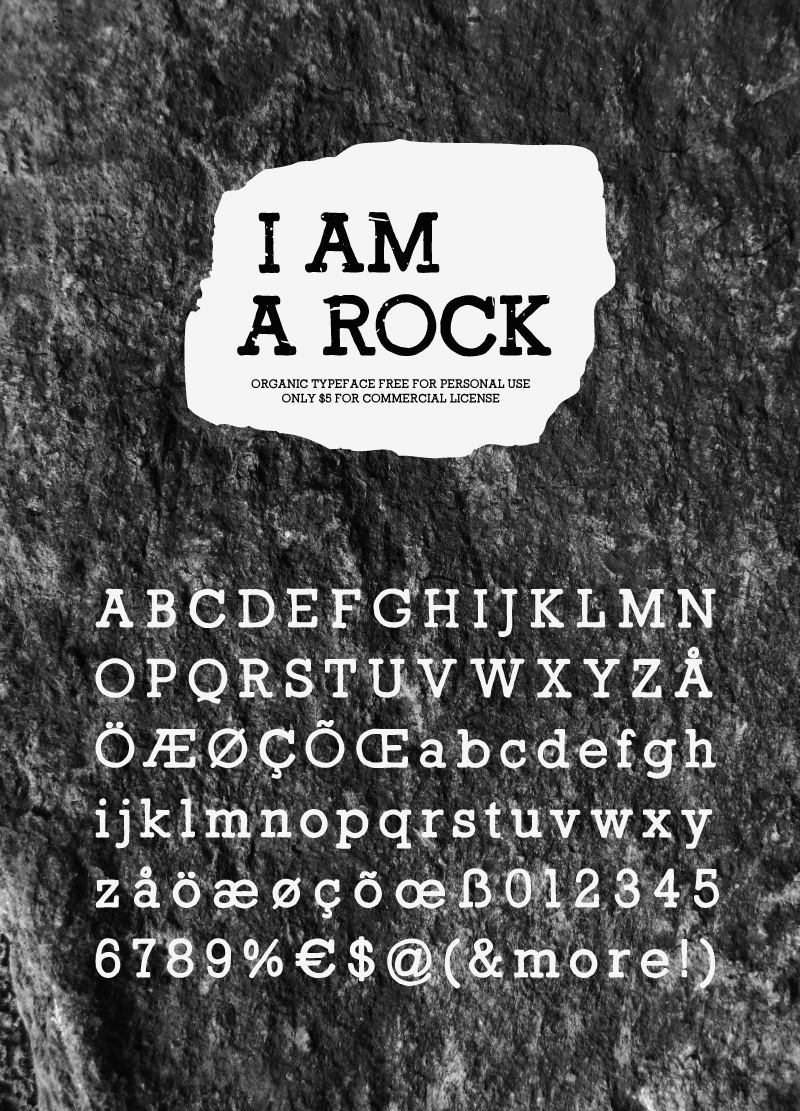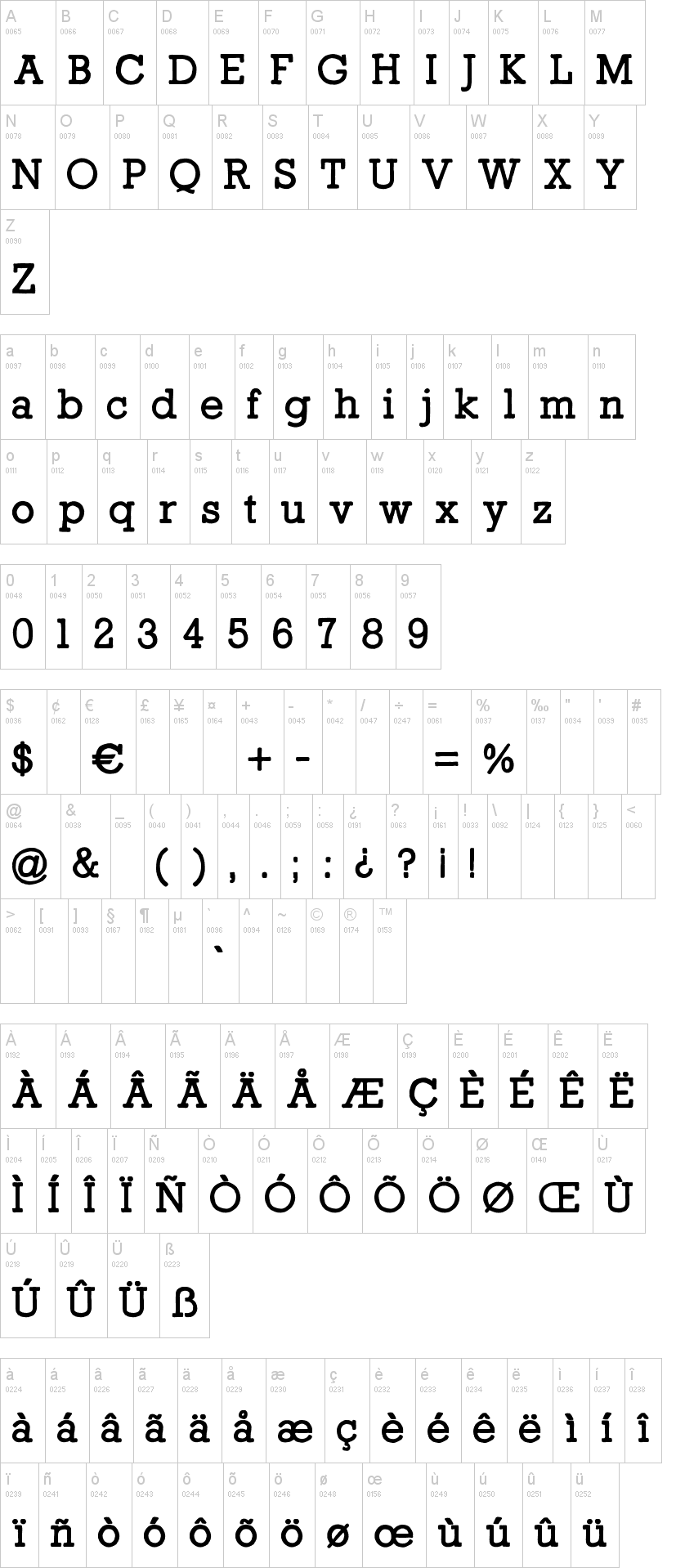
Note of the authorI Am a Rock is a handwritten typeface was made to be used in vintage looking logos, organic headlines and just about anything that needs a handmade feeling in the typography.